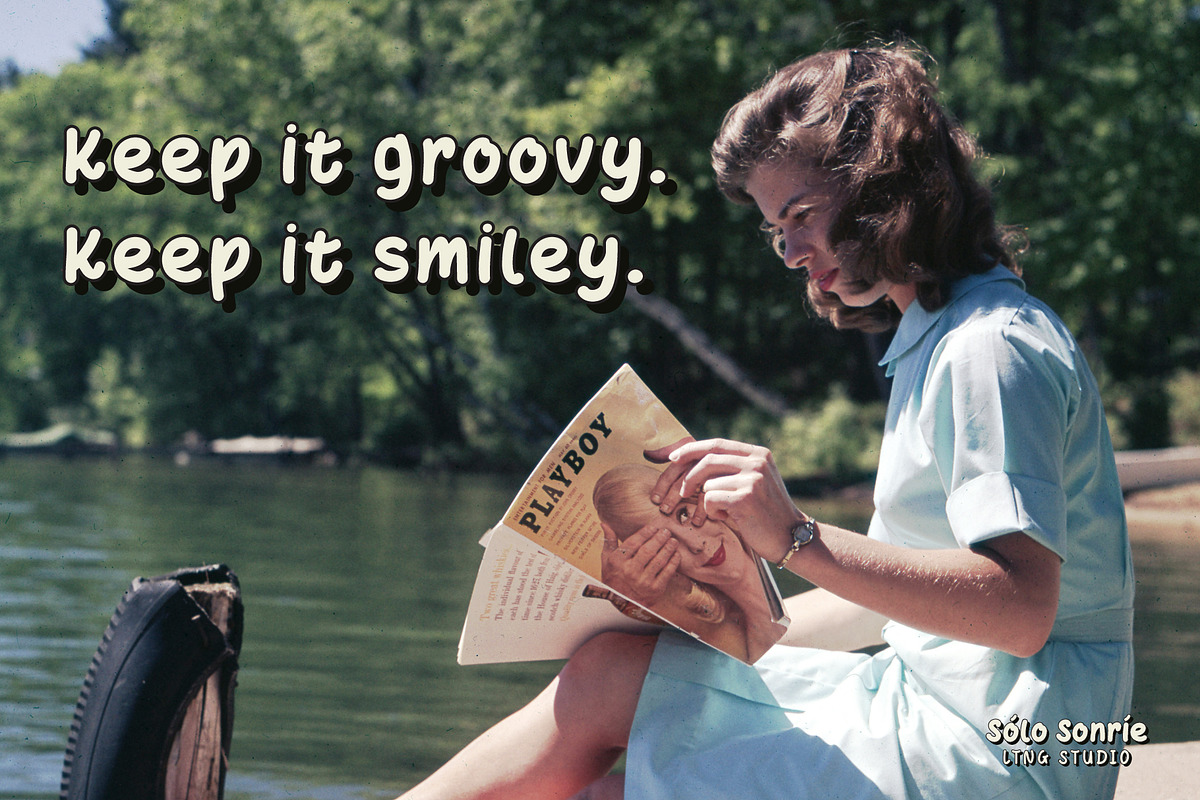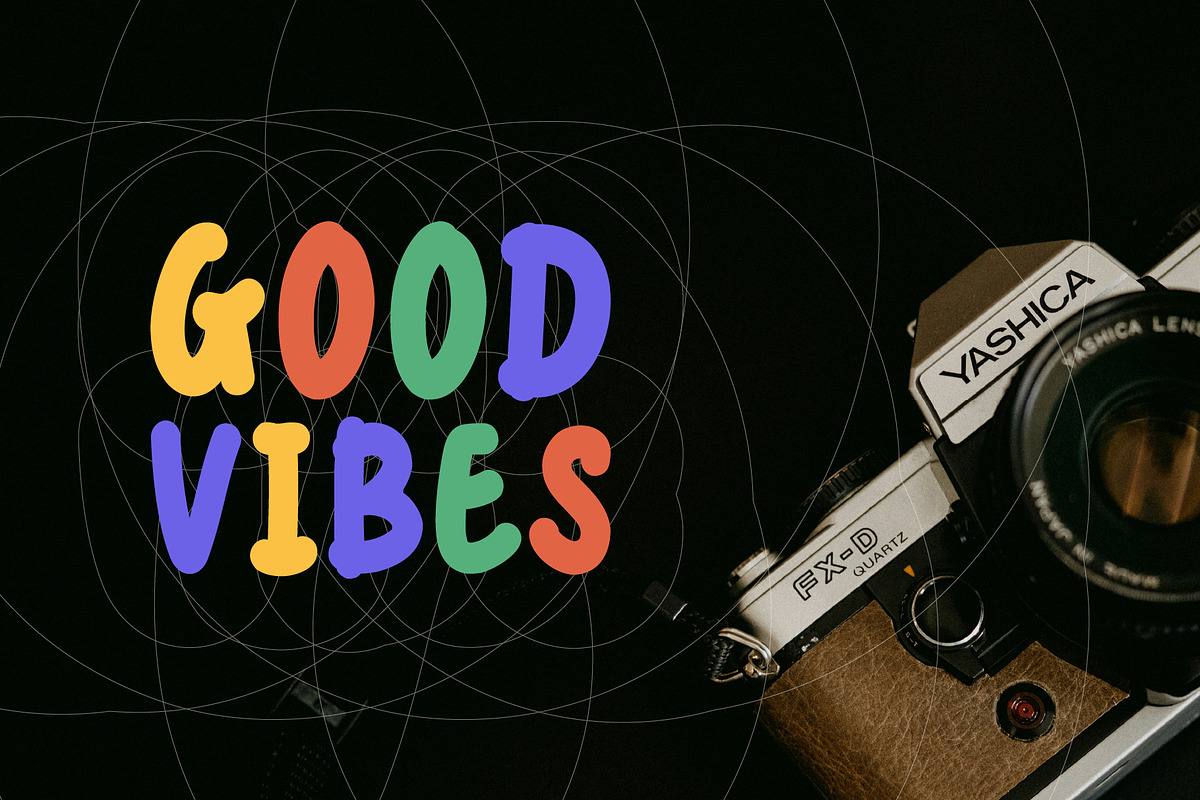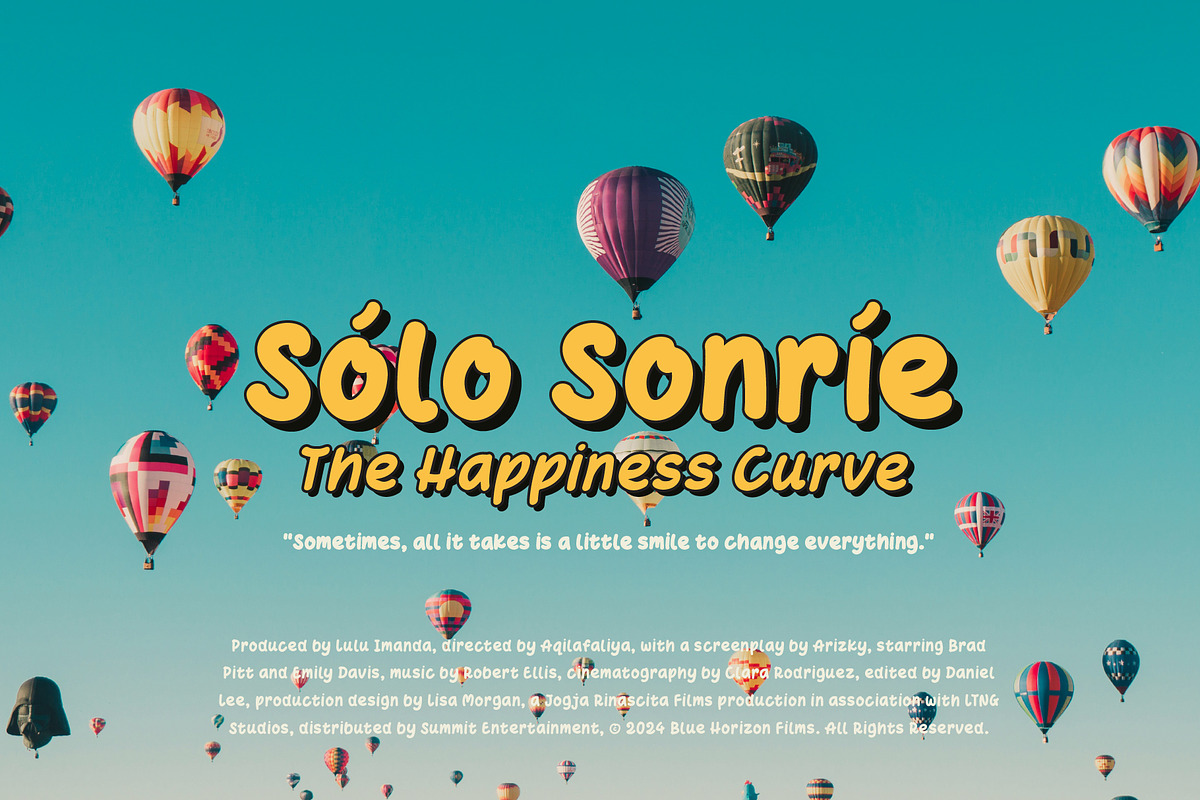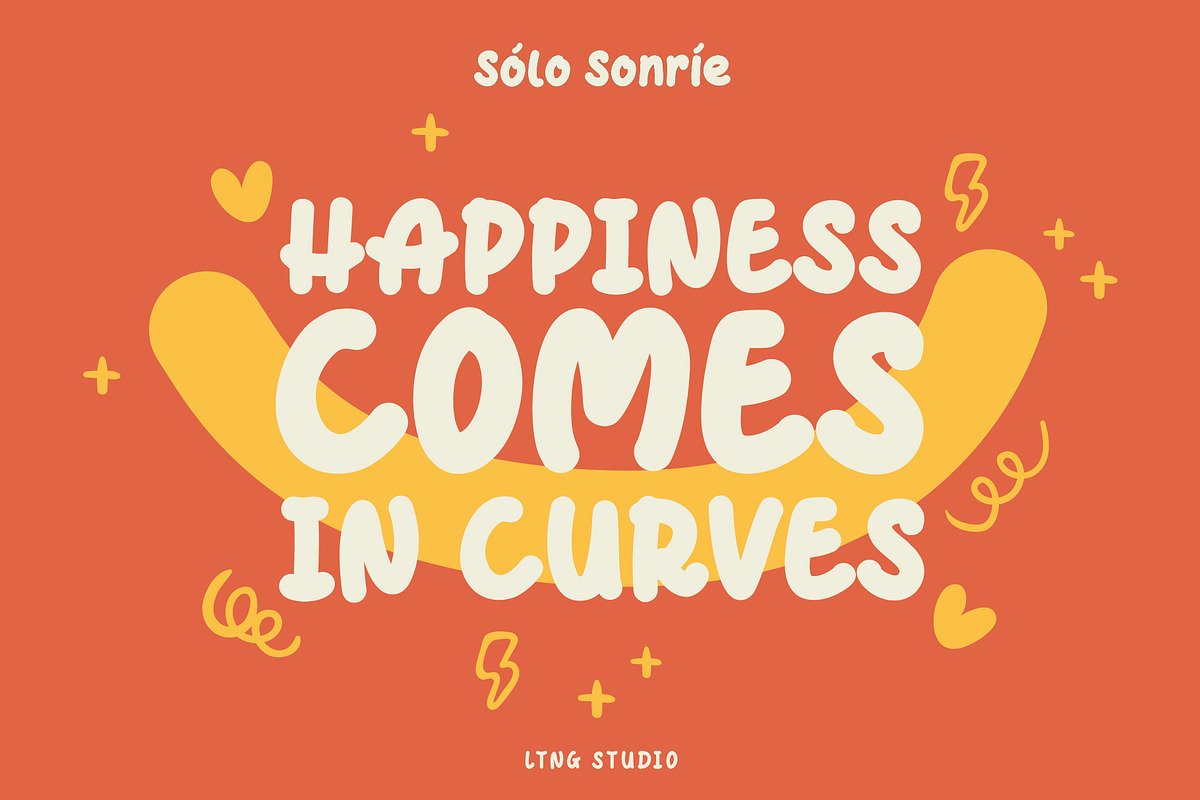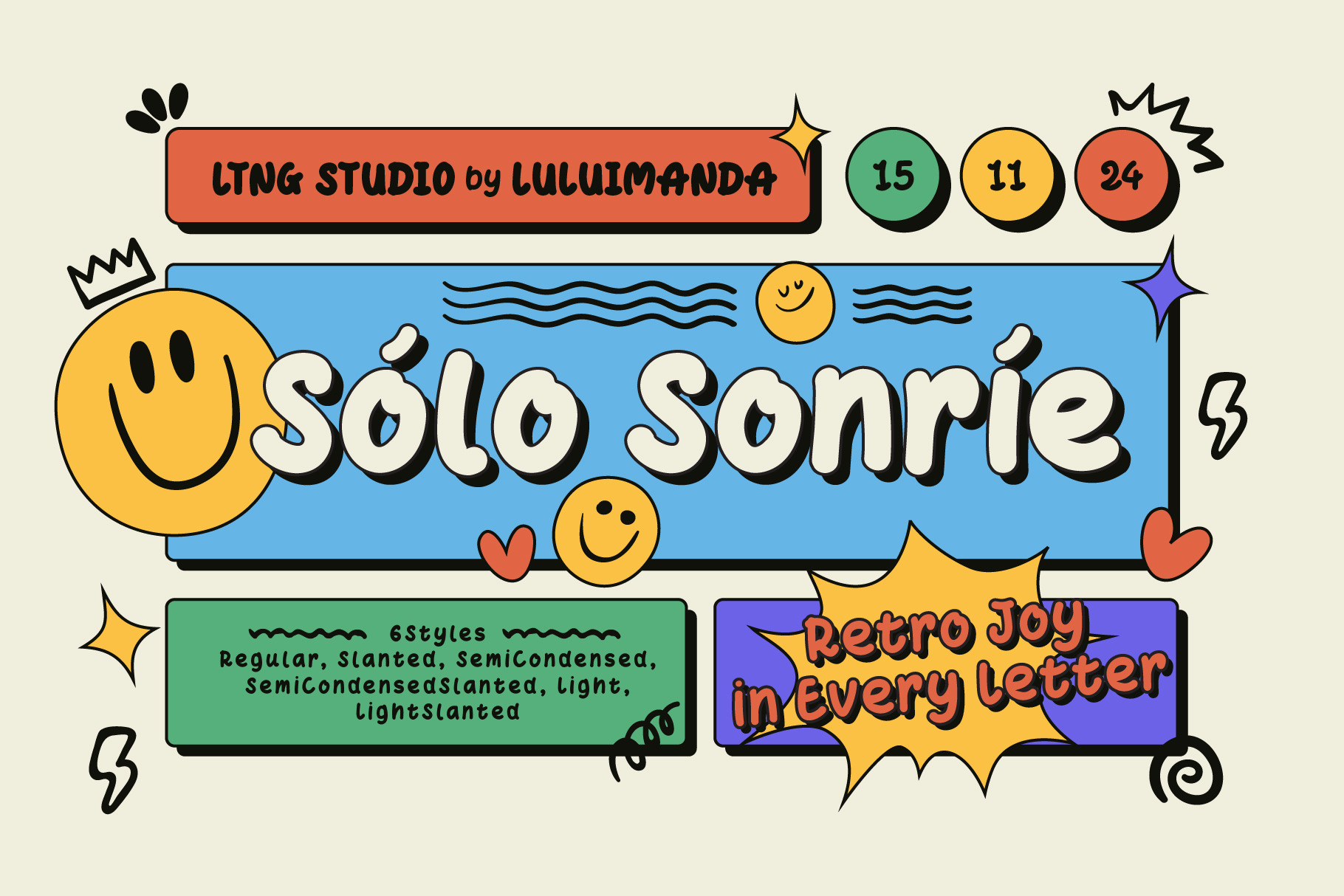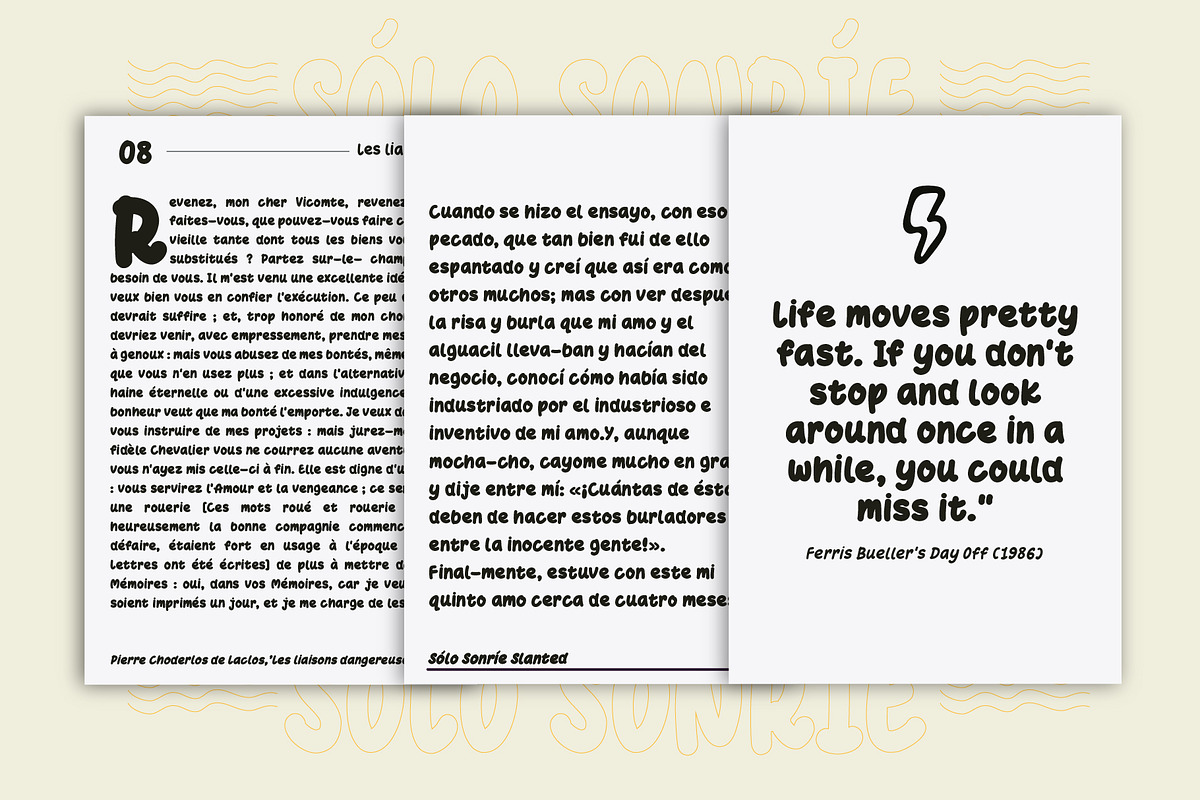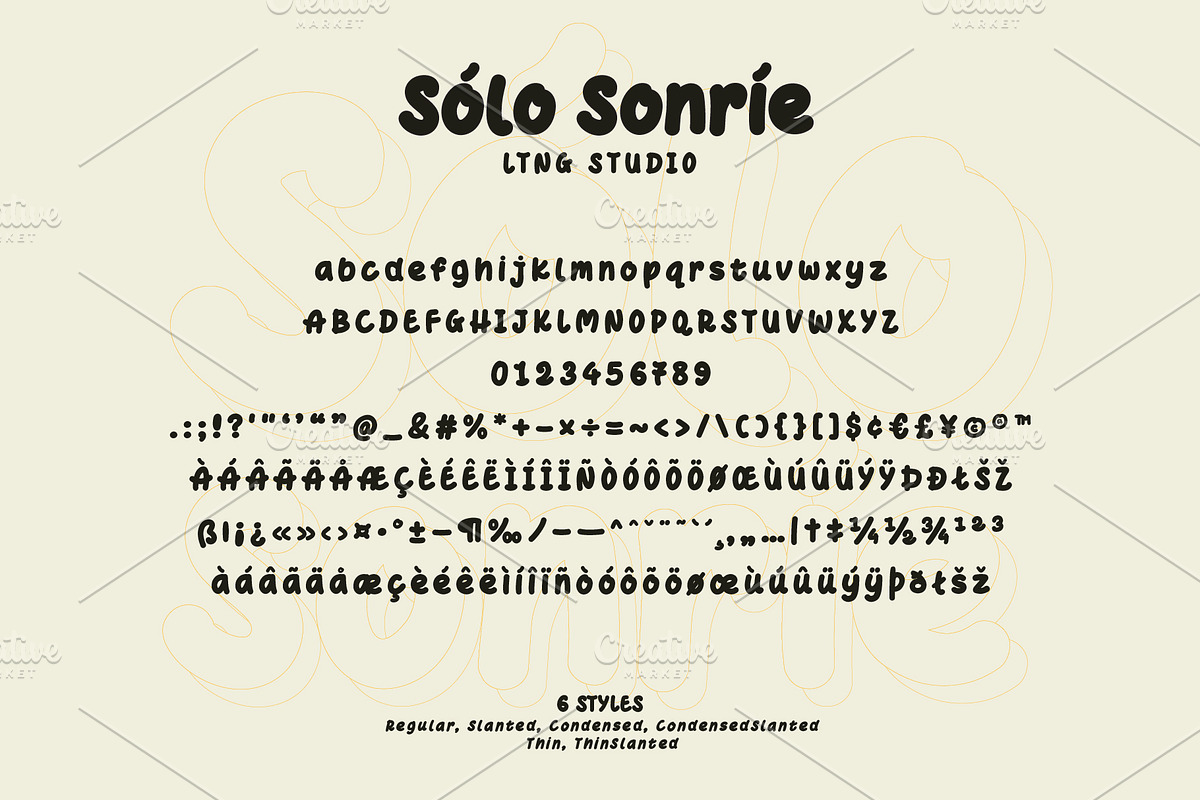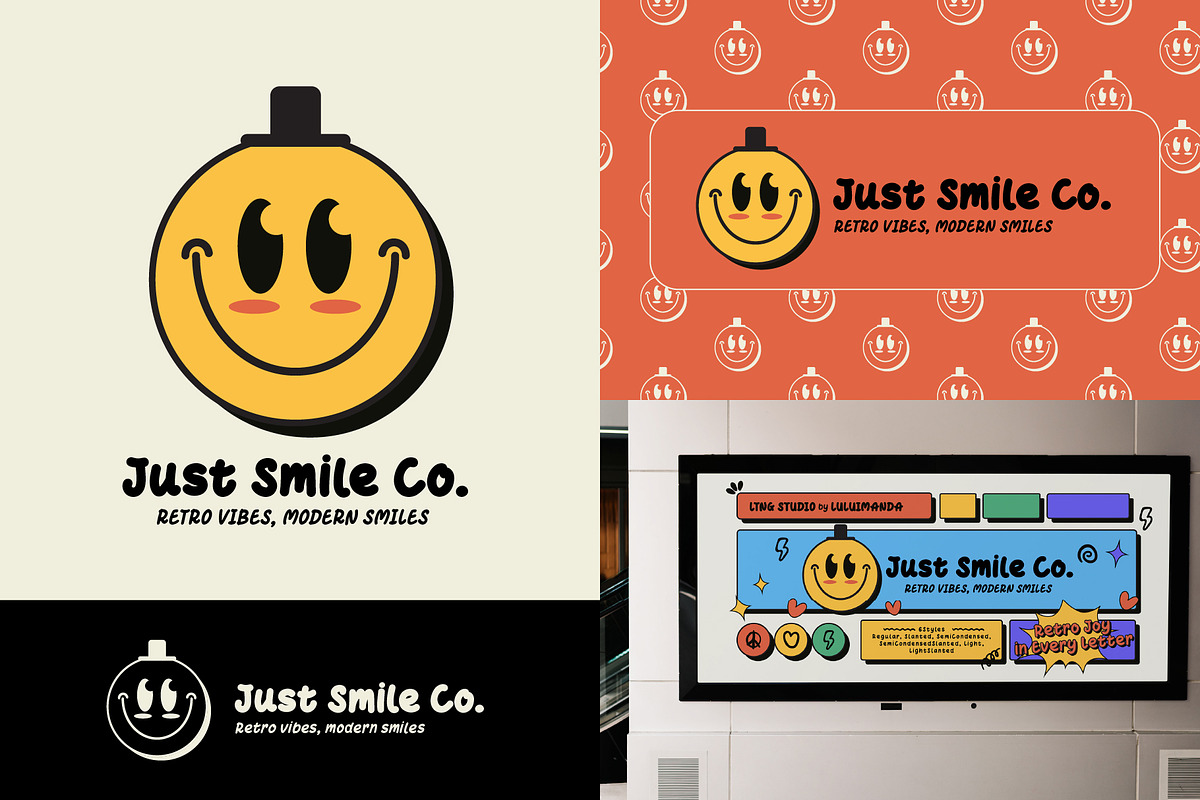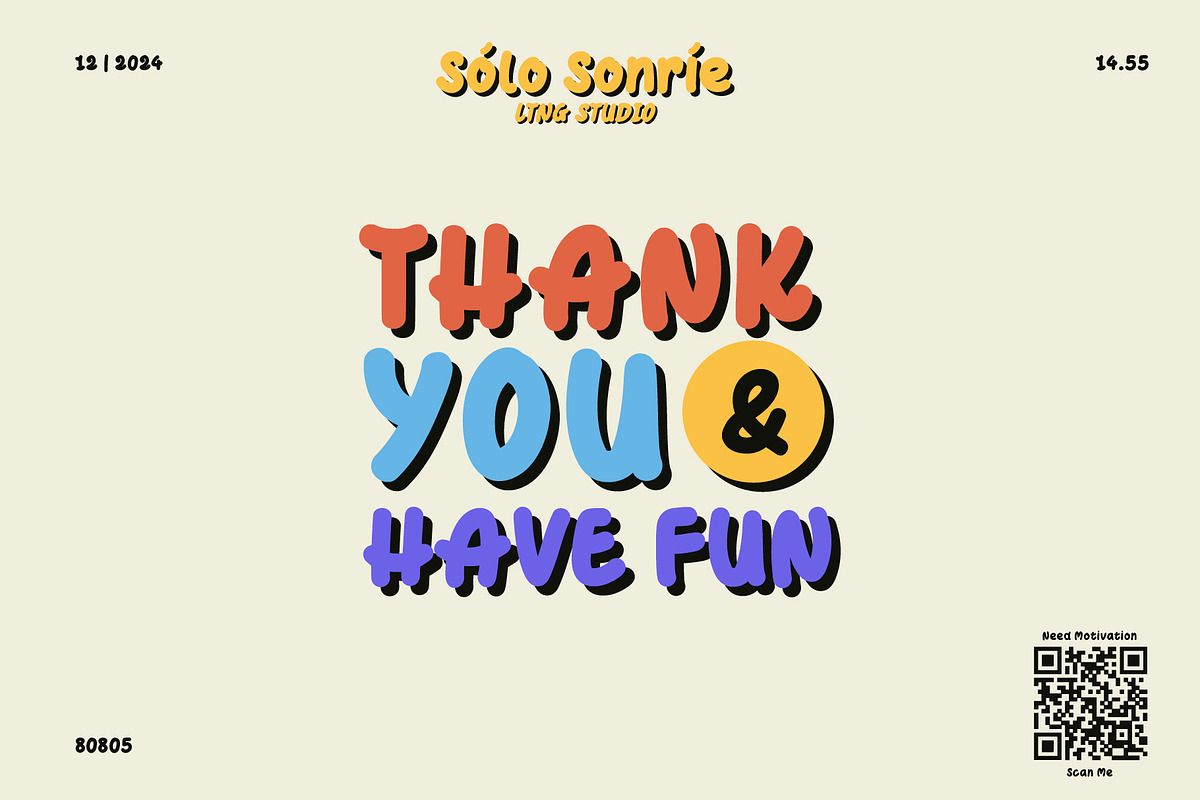
Sólo Sonríe Typeface
"Sólo Sonríe Typeface “Retro Joy in Every Letter."
Sólo Sonríe, meaning "Just Smile" in Spanish, is a joyful and retro-inspired typeface designed to bring positivity and playful energy to your work. Each letter carries an intentional curve that subtly mimics the arc of a smile, delivering a welcoming and lighthearted aesthetic. The rounded edges and smooth geometry feel soft and friendly, creating a versatile typeface that gives vibes warmth, charm, and happiness. Its bold yet retro shapes make it ideal for projects where you want to evoke nostalgia with a modern twist or just to make your reader feel happy.